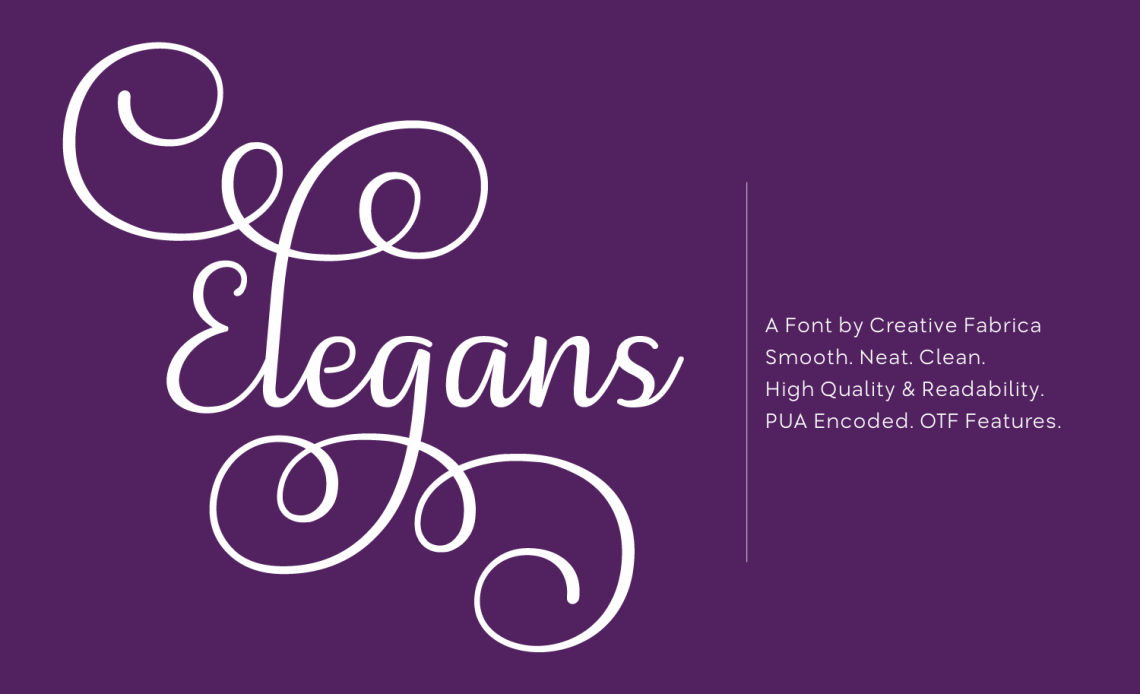
Introducing Elegans Font, the epitome of elegance and personalization in the world of typography. Created by Creative Fabrica Fonts, this smooth script font is bound to captivate your creative senses and elevate your projects to new heights.
With its handwritten slant, Elegans brings a touch of sophistication and refinement to any design. Its slightly tilted letters are seamlessly connected, creating a fluid and graceful appearance. But that's not all - this font offers multiple variations, including options with and without swashes, allowing you to customize and tailor it to your unique style.
Elegans is the perfect companion for a wide range of projects. Whether you're working on branding and marketing materials, craft projects, invites, thank you cards, or even eye-catching signs, this font has got you covered. Its versatility knows no bounds, effortlessly adapting to any design concept you have in mind.
One of the standout features of Elegans is its optimized readability. Each letter has been meticulously crafted to ensure effortless legibility, making it a joy to work with. Say goodbye to frustrating font woes and embrace the seamless flow of Elegans as it effortlessly conveys your message to your audience.
But it doesn't stop there - Elegans is designed with convenience in mind. It is PUA encoded, meaning it can be effortlessly used in any application of your choice. Whether you're a seasoned designer or a beginner exploring the world of typography, Elegans ensures a hassle-free experience, allowing you to focus on what truly matters - bringing your creative vision to life.
Let Elegans be the cornerstone of your next project, infusing it with elegance, personality, and a touch of sophistication that will leave a lasting impression. Stand out from the crowd and make a statement with this captivating font that oozes creativity and professionalism.